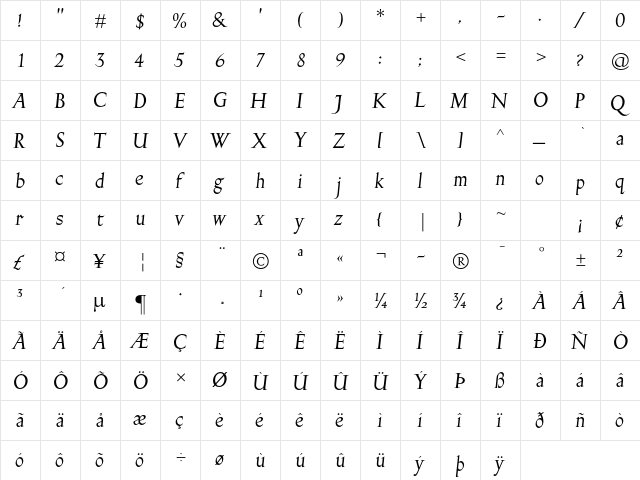
Gill Facia MT Std Italic
Design Context for Gill Facia MT Std Typeface
Gill Facia MT Std offers clean, dependable letterforms without strong stylistic allegiance, making it a practical choice for designers who need flexibility. Its italic angle brings a sense of urgency and motion to the letterforms.
Pro Tip: Try Gill Facia MT Std for annotation and caption copy alongside an upright companion — the contrast in angle creates a dynamic but ordered typographic system.